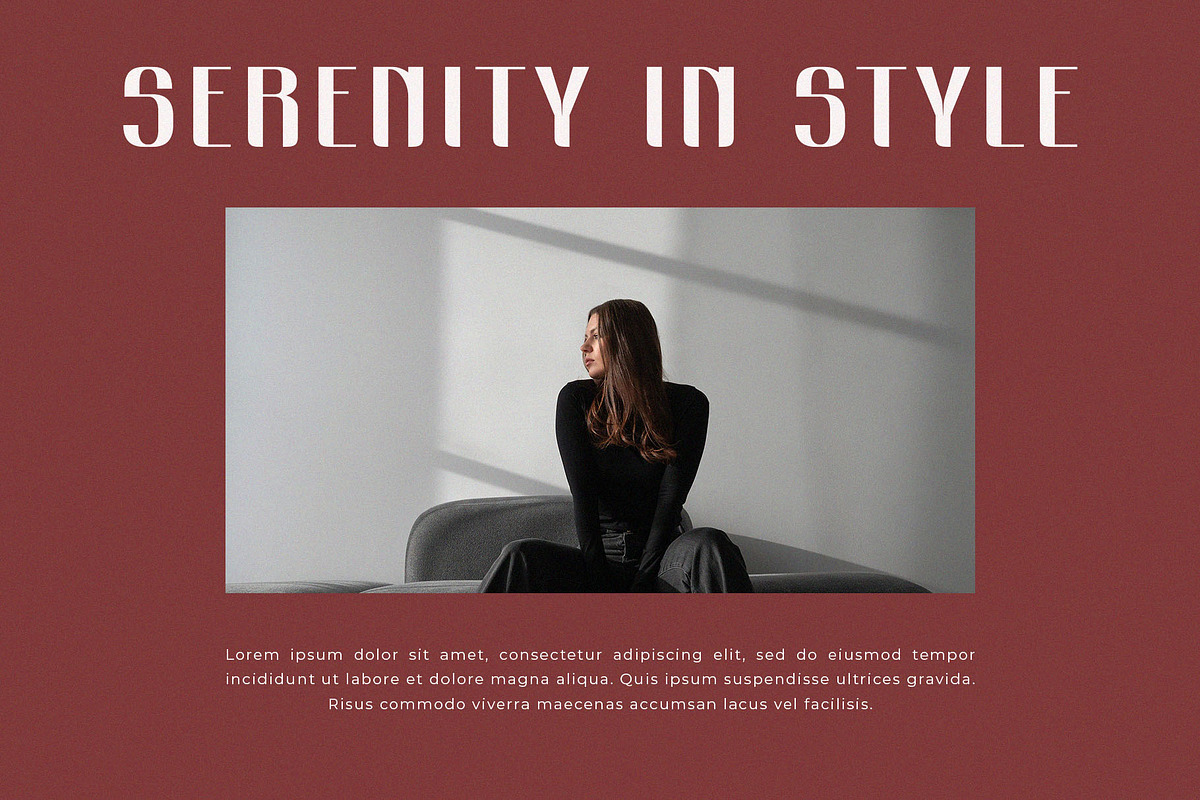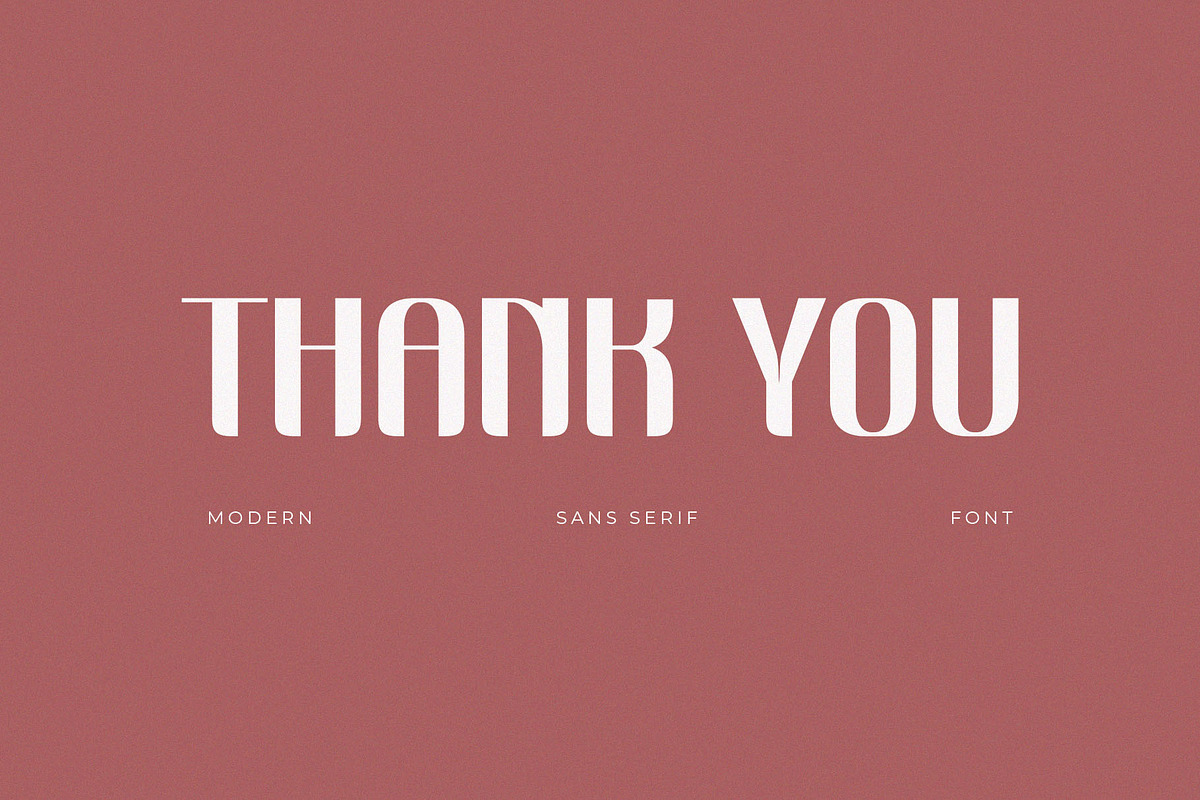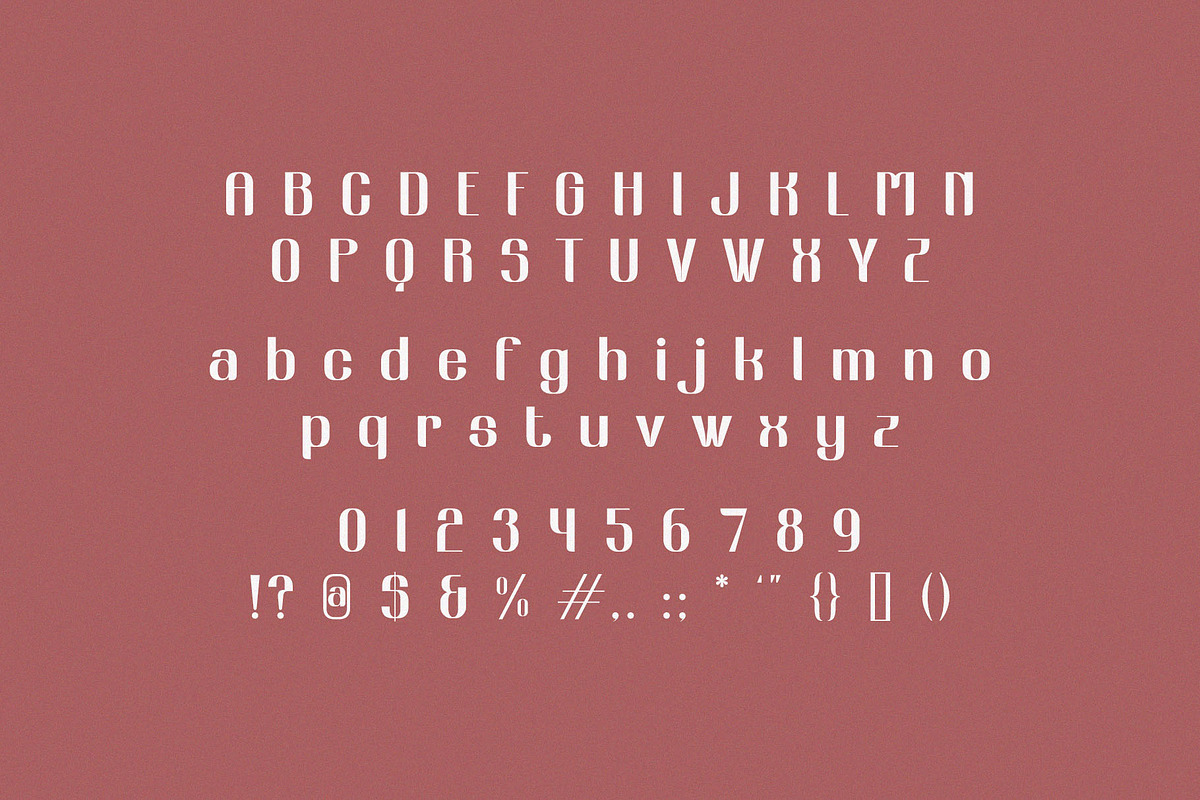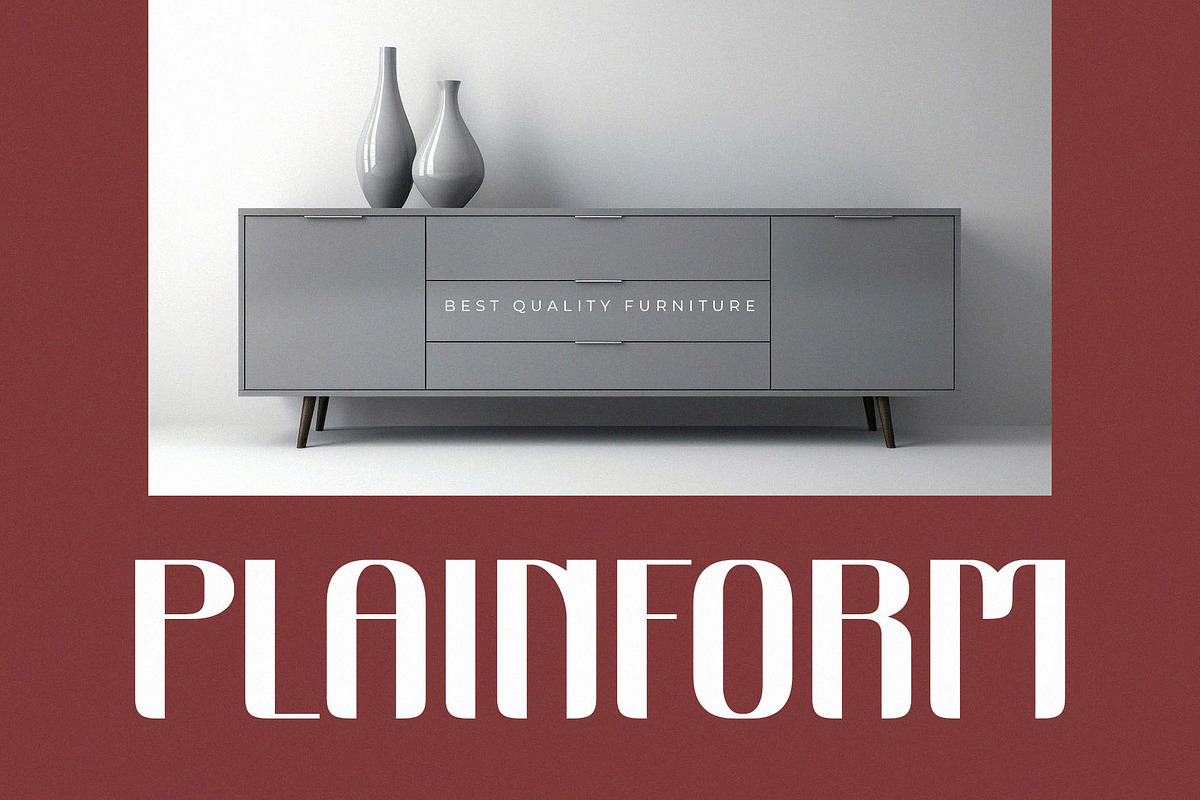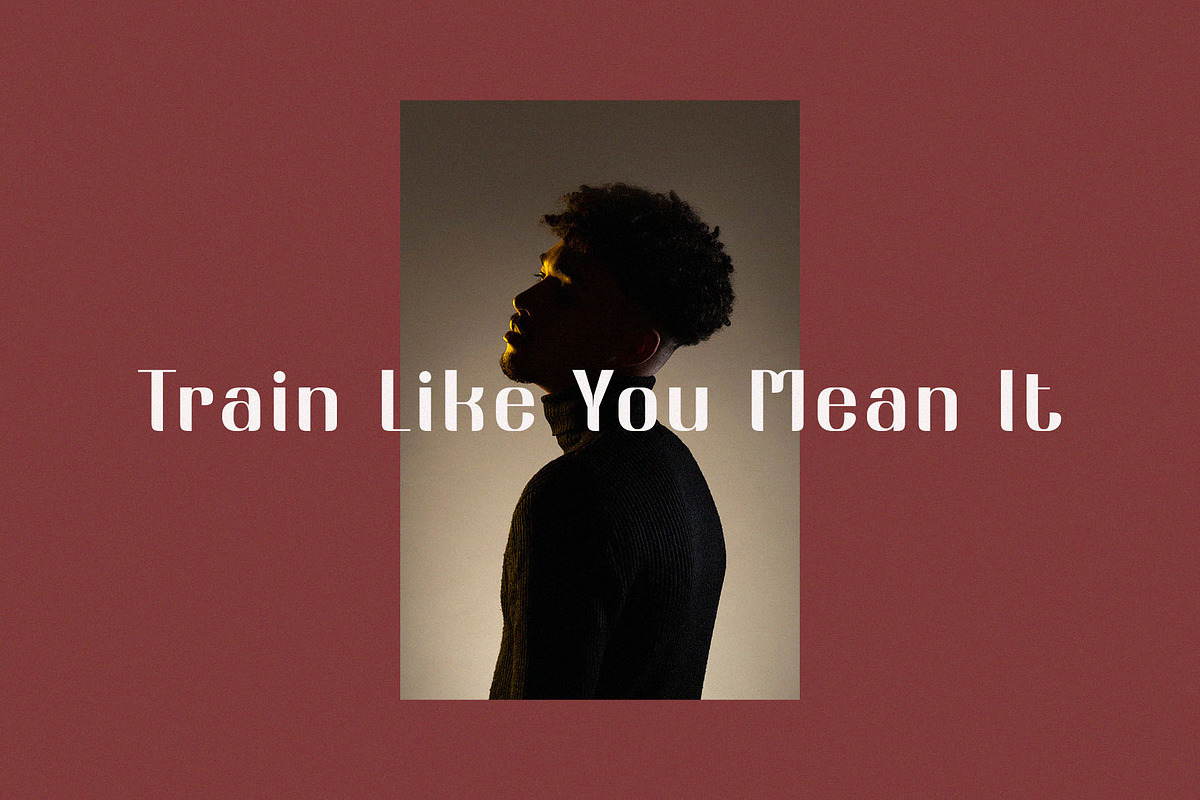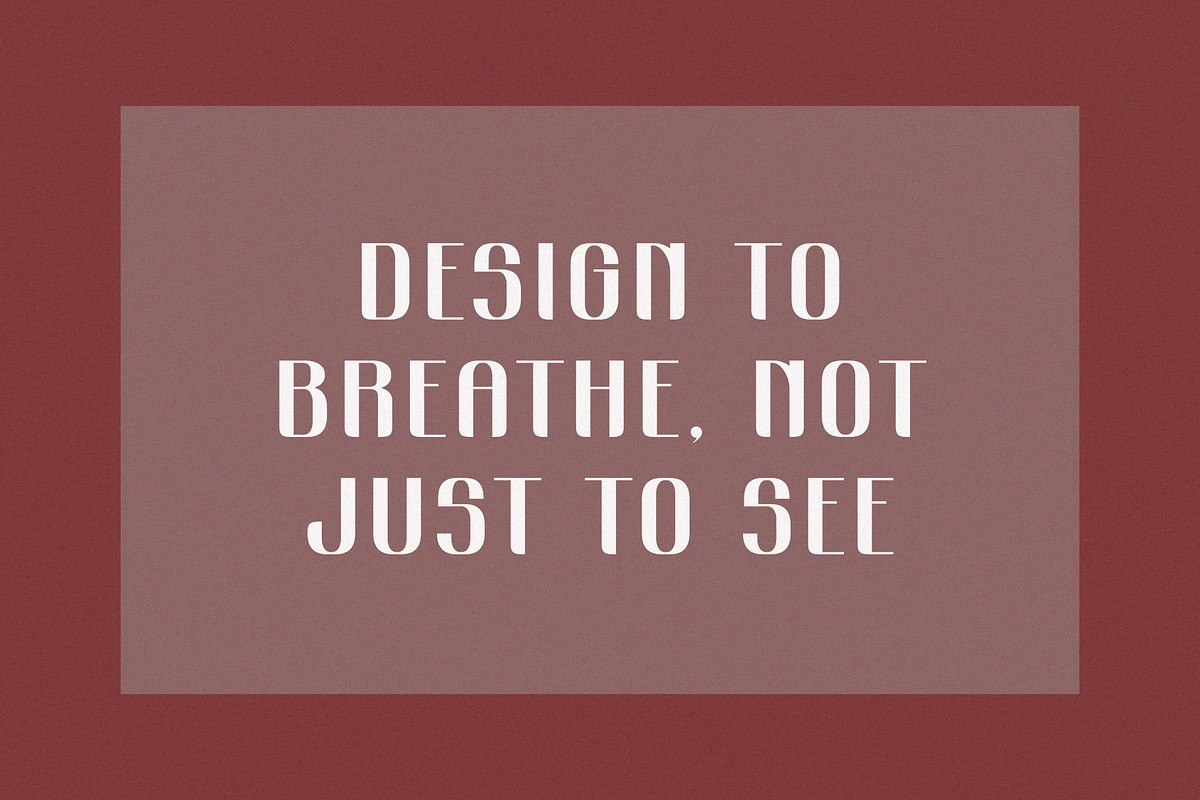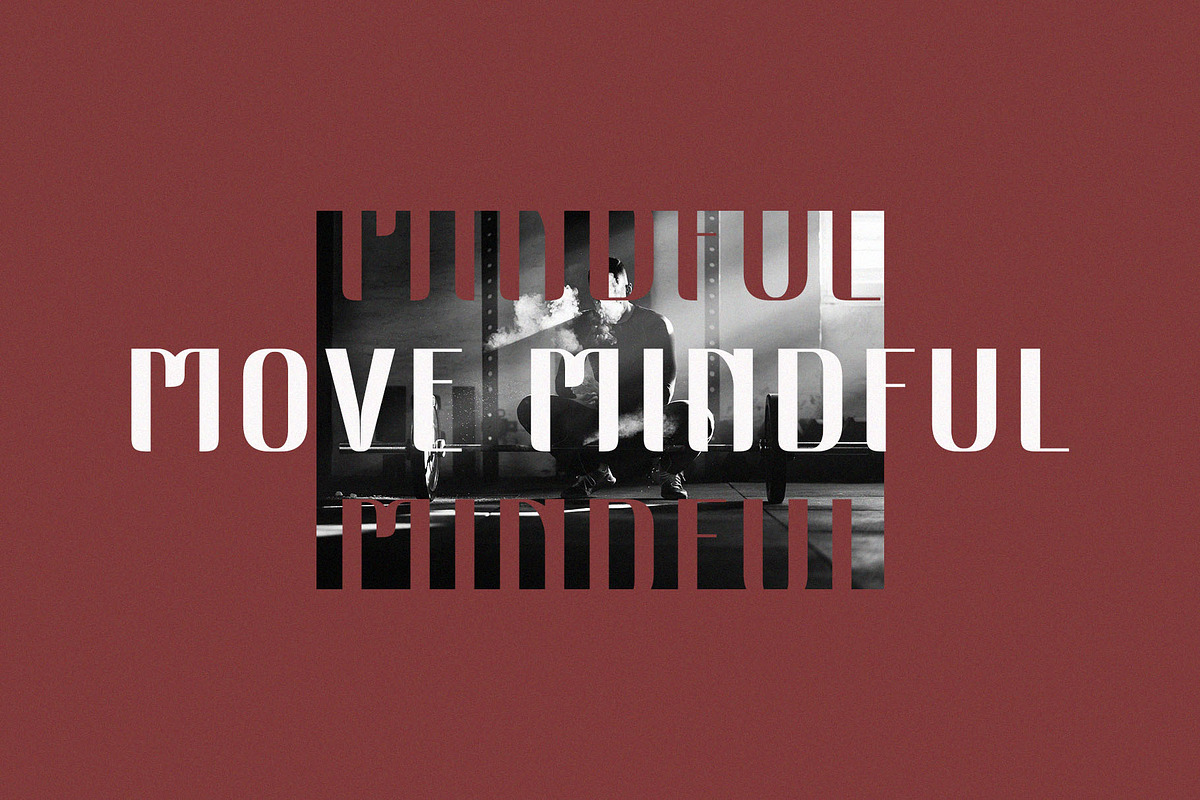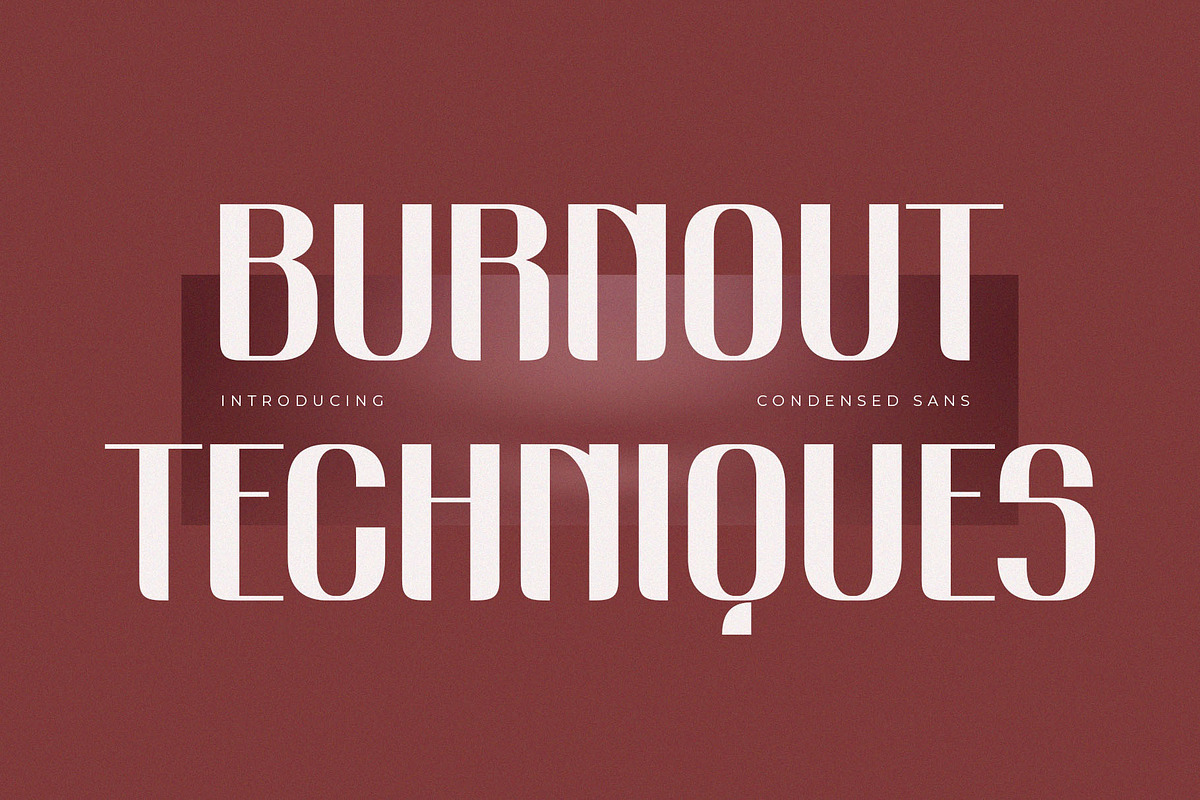
Burnout Techniques Elegant Condensed
Burnout Techniques – Elegant Condensed Sans Serif Font with Uppercase & Lowercase for Editorial & Branding
Burnout Techniques is a modern condensed sans serif font with a distinct retro flair and elegant curves. Featuring both uppercase and lowercase characters, this typeface combines vintage design principles with a clean, fashionable structure — making it perfect for editorial layouts, fashion branding, logos, social media graphics, posters, and more.
Designed for designers who want to make bold yet refined typographic statements, Burnout Techniques offers sleek vertical lines and creative terminals that bring sophistication and edge to any visual composition.
- Condensed sans serif style
- Perfect for high-end branding and fashion designs
- Modern-retro feel with minimalist execution
- Ideal for logos, posters, packaging, headlines, and social content
Burnout Techniques provides the versatility and elegance to make your design unforgettable.